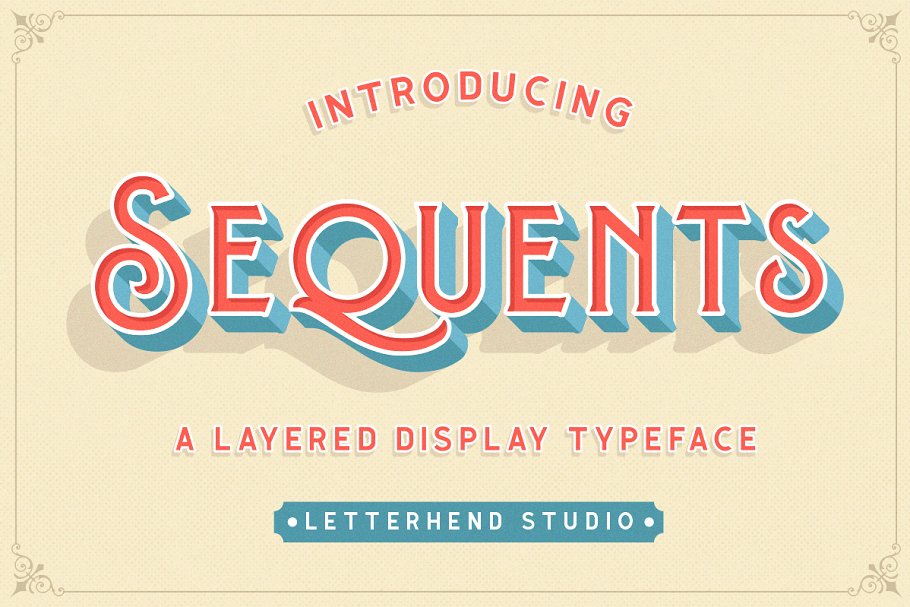
Sequents - Layered Font (+ORNAMENT)
Sequents - Layered Font is perfect for dynamic brand identity systems, multi-dimensional logo designs, layered poster compositions, complex graphic design projects, dimensional typography artwork, progressive tech company branding, innovative design agency portfolios, sophisticated editorial layouts, advanced packaging design concepts, and experimental visual communication materials. This versatile typeface brings depth and complexity to architectural firm presentations, multi-layered marketing campaigns, dimensional signage systems, creative studio branding, and contemporary art exhibition graphics.
Sequents - Layered Font is exciting because it revolutionizes typography through its innovative multi-layer system that allows designers to create stunning dimensional effects and complex visual hierarchies. The font features multiple coordinated layers that can be combined to produce shadow effects, outlines, fills, and dimensional depth that transforms flat typography into engaging three-dimensional experiences. Its distinctive layered architecture demonstrates design innovation with carefully crafted components that work seamlessly together to create limitless creative possibilities. The font's dimensional versatility and layered sophistication make it perfect for brands seeking to communicate innovation, creative complexity, and cutting-edge design thinking in their visual communications.
The Sequents - Layered Font family includes various dimensional combinations: Base Layer, Shadow Layer, Outline Layer, Fill Layer, Gradient Layer, Texture Layer, Light Layer, Bold Layer, Condensed Layers, Extended Layers, Decorative Layers, and Effect Layers variants. Each layer component maintains perfect registration while offering infinite creative combinations for diverse dimensional design applications. The comprehensive layered system ensures consistent multi-dimensional branding across complex design projects, innovative marketing materials, and sophisticated visual communication systems.
Sequents - Layered Font Free Download provides designers with an exceptional tool for creating revolutionary and dimensionally rich visual experiences. This remarkable typeface system seamlessly integrates multiple design layers with contemporary functionality, making it ideal for both digital dimensional platforms and premium layered print applications. The font's carefully engineered layer system and innovative design create memorable visual experiences that resonate with audiences seeking creative sophistication, design innovation, and dimensional visual impact.
Whether you're developing multi-dimensional brand identities, designing layered marketing materials, creating complex website headers, or crafting innovative promotional campaigns, Sequents - Layered Font delivers outstanding dimensional appeal and design sophistication. The font's distinctive layered personality excels in complex logos, dimensional packaging design, innovative applications, and creative projects where design depth and layered sophistication are essential.